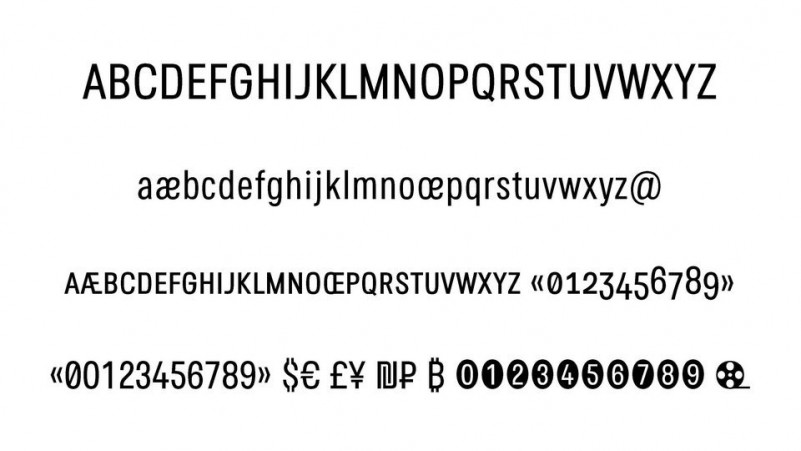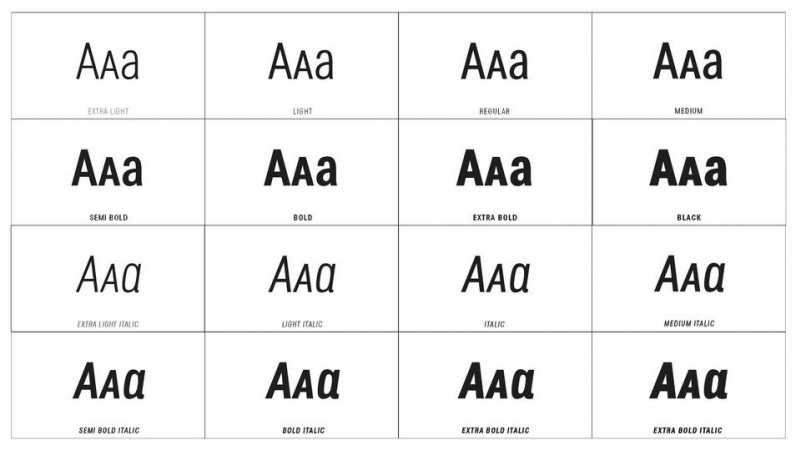
Secuela Font
Secuela Sans Serif Font
This is a modern condensed font that has simple, geometric characters with soften round edges and a modern look. It’s a geometric construction and neo-Gothic style with short descenders and a humanistic finish in the curves to avoid the coldness of purely grotesque typographies, evoking a feeling of warmth and personality, which results in a friendly and very readable typography, is specially drawn for the composition of any text, signage or headlines, both for printing and for screen.
The typography has 704 glyphs with capital letters in small caps, advanced OpenType functions, several number games and the Bitcoin symbol. The styles in italics have lowercase letters of their own and some capital letters, as well as multiple optical corrections to correct the deformations produced by the 8-degree inclination.